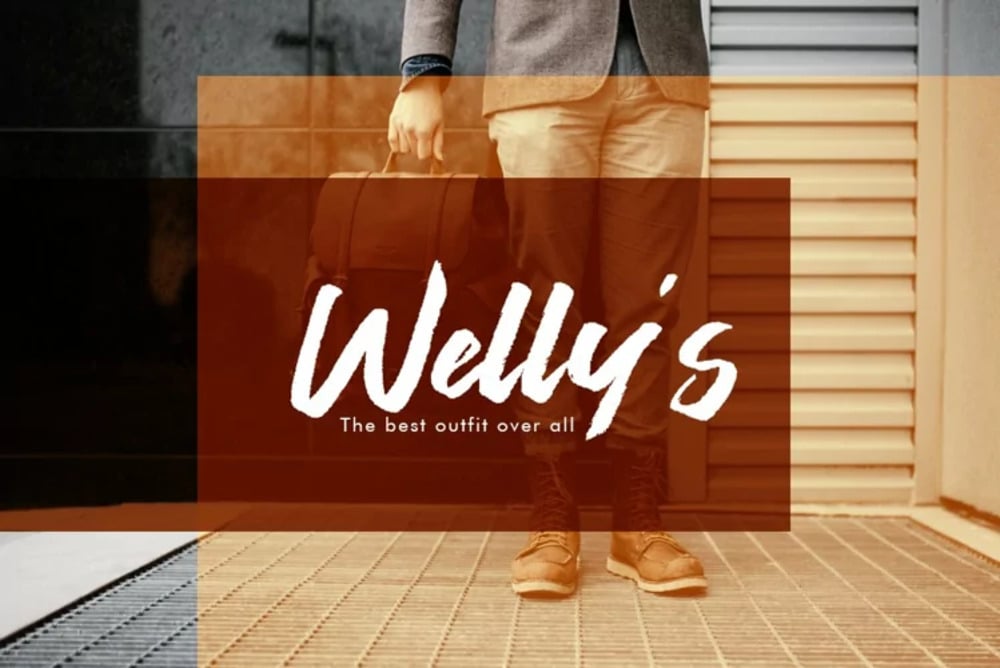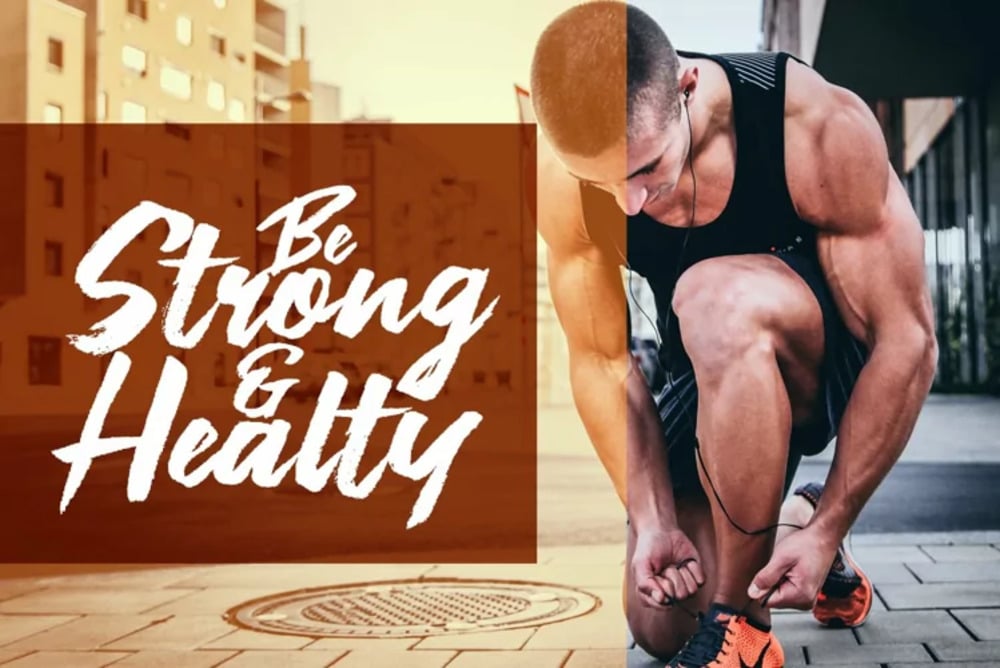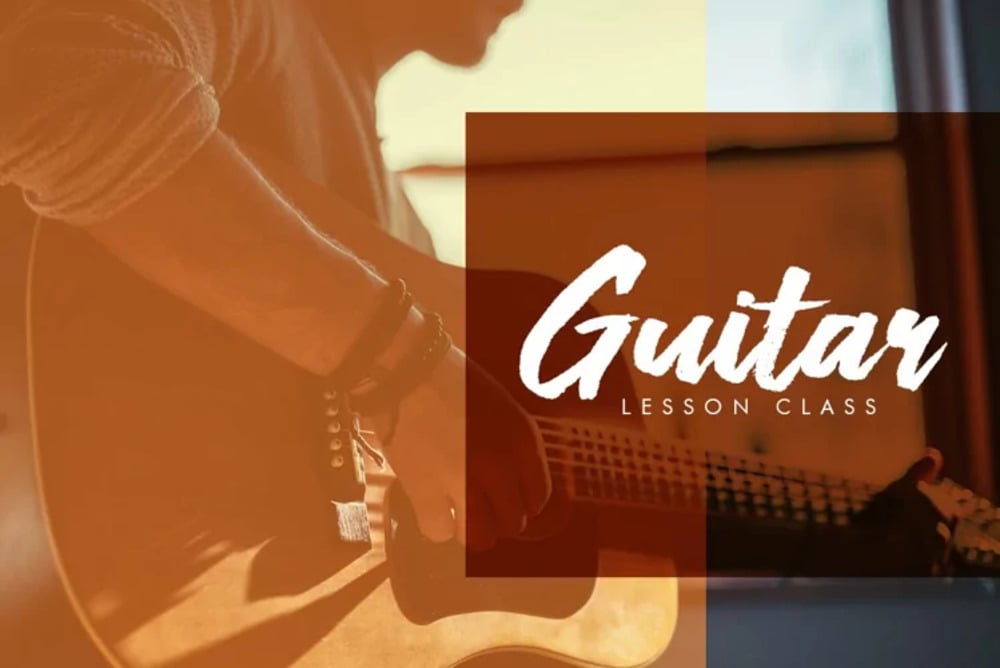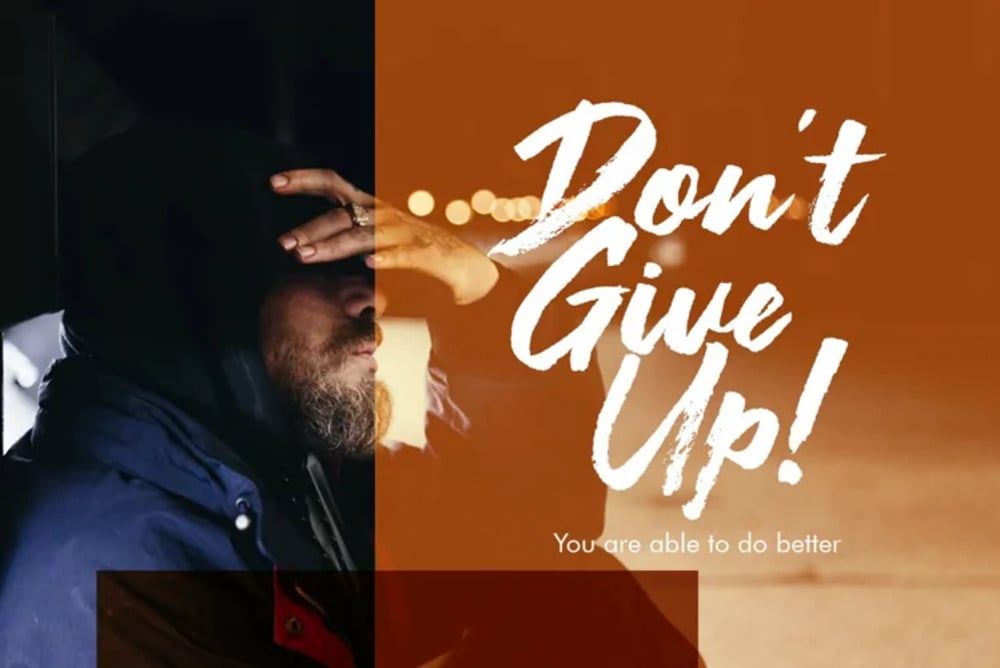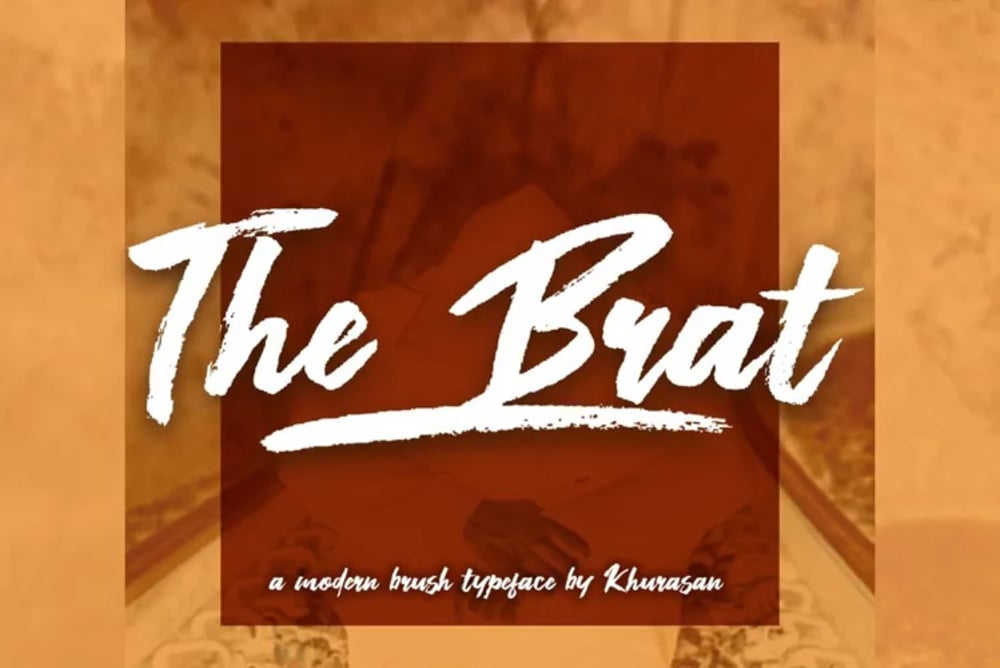
The Brat Font
The Brat font is a bold and rebellious display typeface with a rough, hand-drawn aesthetic. Its edgy, imperfect lines and slightly distressed texture give it a gritty, street-inspired vibe. Perfect for projects that demand attention, The Brat is ideal for posters, album covers, apparel, and anything that needs a dose of attitude. It’s designed to make a statement and capture a raw, untamed energy.